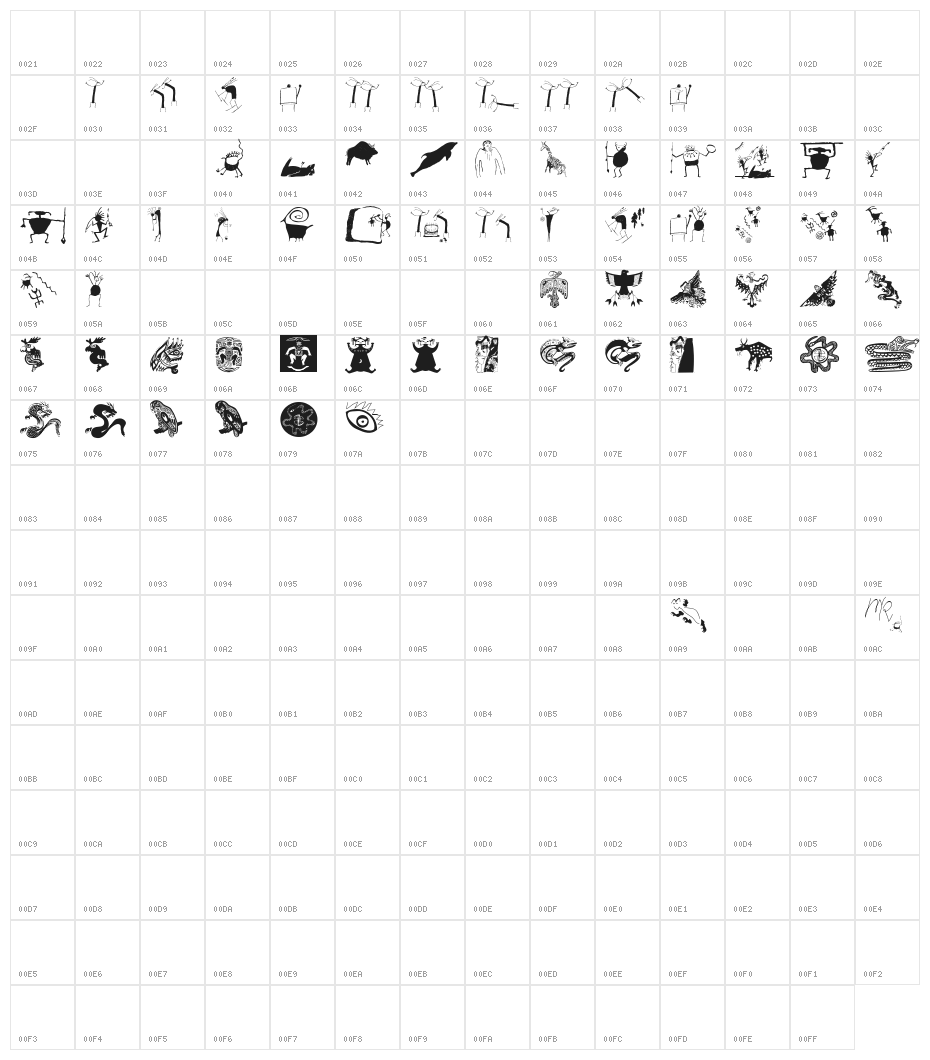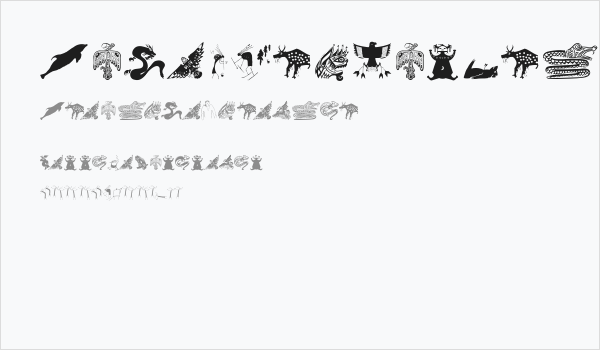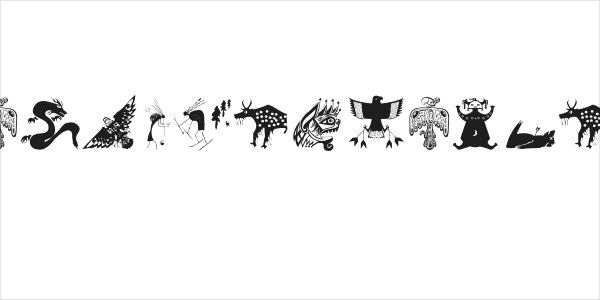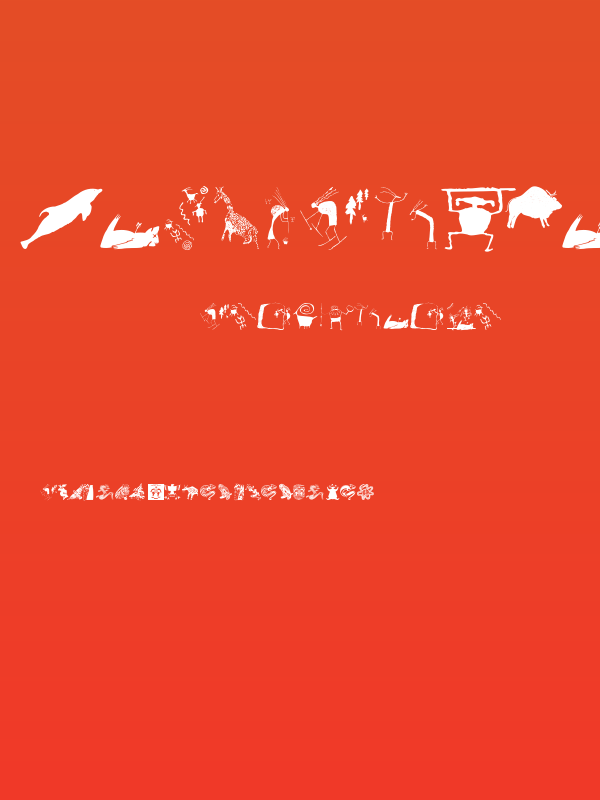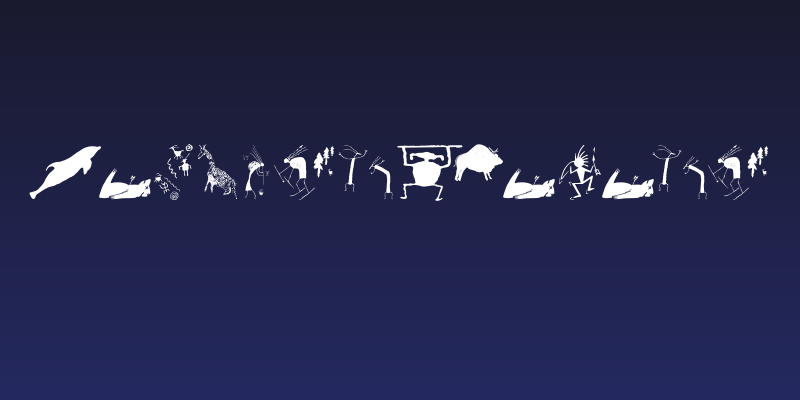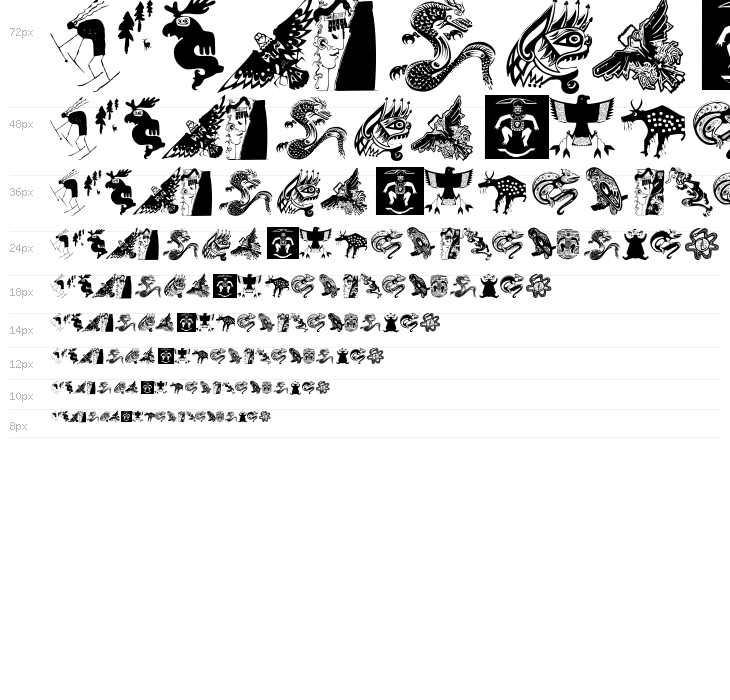
CaveNTribalArt Font
CaveNTribalArt Description
A highly decorative, pictorial font inspired by tribal and cave art, featuring hand-drawn, illustrative glyphs resembling ancient petroglyphs and indigenous motifs. Each character is represented by a unique, detailed drawing rather than traditional letterforms, evoking a primitive, storytelling aesthetic.
| Overall Style | Decorative, Primitive, Tribal, Artistic |
| Use Case | Logos, Headlines, Posters, Themed graphics |
| Proposed Projects | Posters, themed event invitations, educational materials about ancient cultures, museum exhibits, creative branding for cultural or artistic projects. |